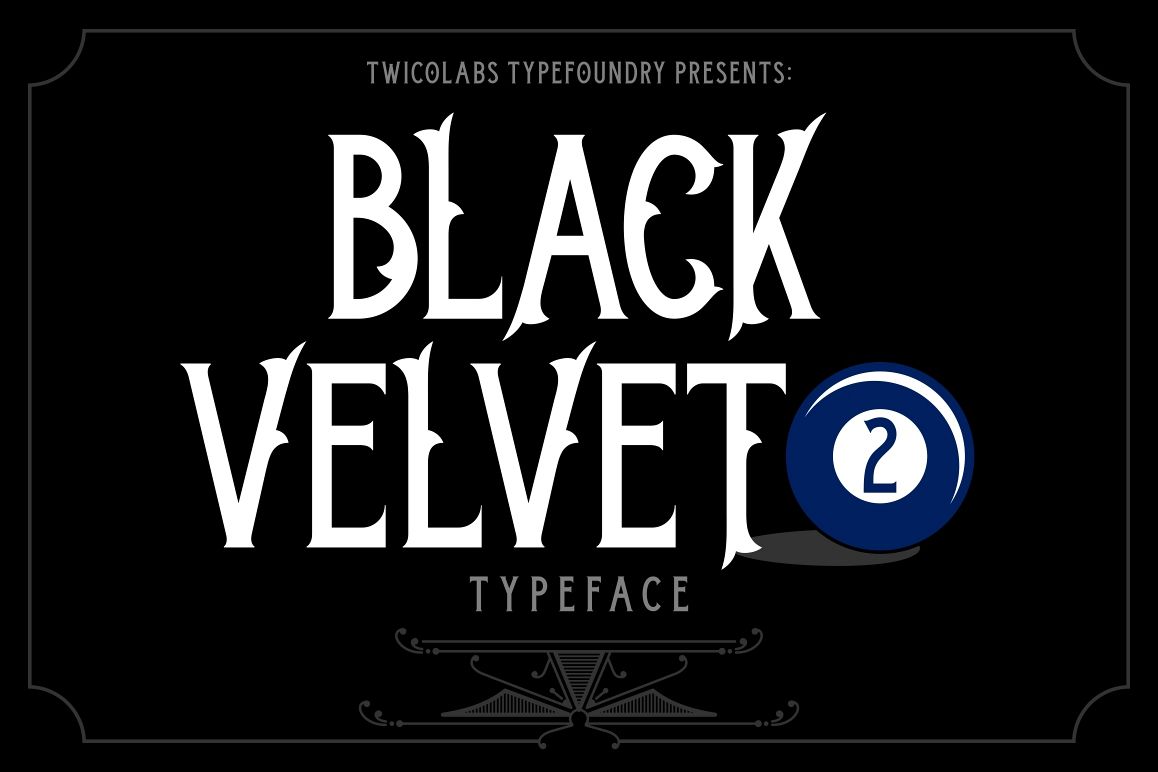
Black Velvet 2
Black Velvet 2 is a new version of our previous best seller Black Velvet.
This new version have a higher caps and x-height, curlier curves, simplified ornament, better details and readability.
Mousecrafted with high attention to crisp lines, nodes and details.
If you're into classic / vintage design theme, this font will be a great addition to your arsenal.